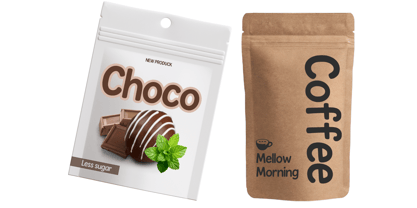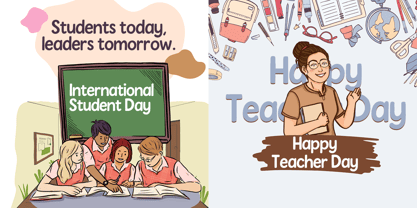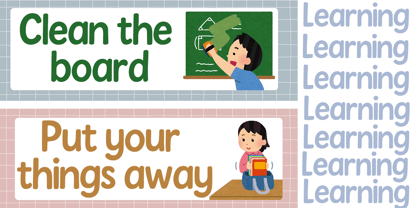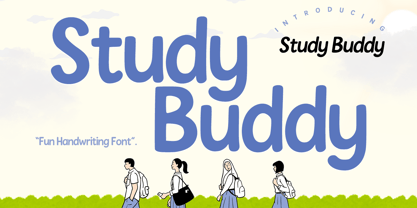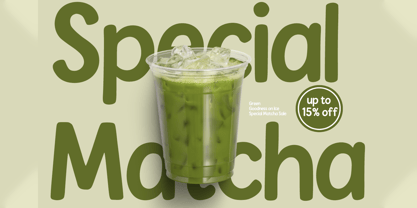
Study buddy
by Cocodesign
The Study buddy Font Family was designed by Muhammad Zaini and published by Cocodesign. Study buddy contains 3 styles and family package options. More about this family
Study Buddy is a playful handwritten font with a rounded, friendly, and cheerful look. Its simple yet expressive style makes it perfect for a wide range of creative projects, especially those related to education, kids, and fun occasions.
This font brings a warm and joyful feel, making it ideal for school posters, worksheets, birthday invitations, kids’ product packaging, and social media designs.